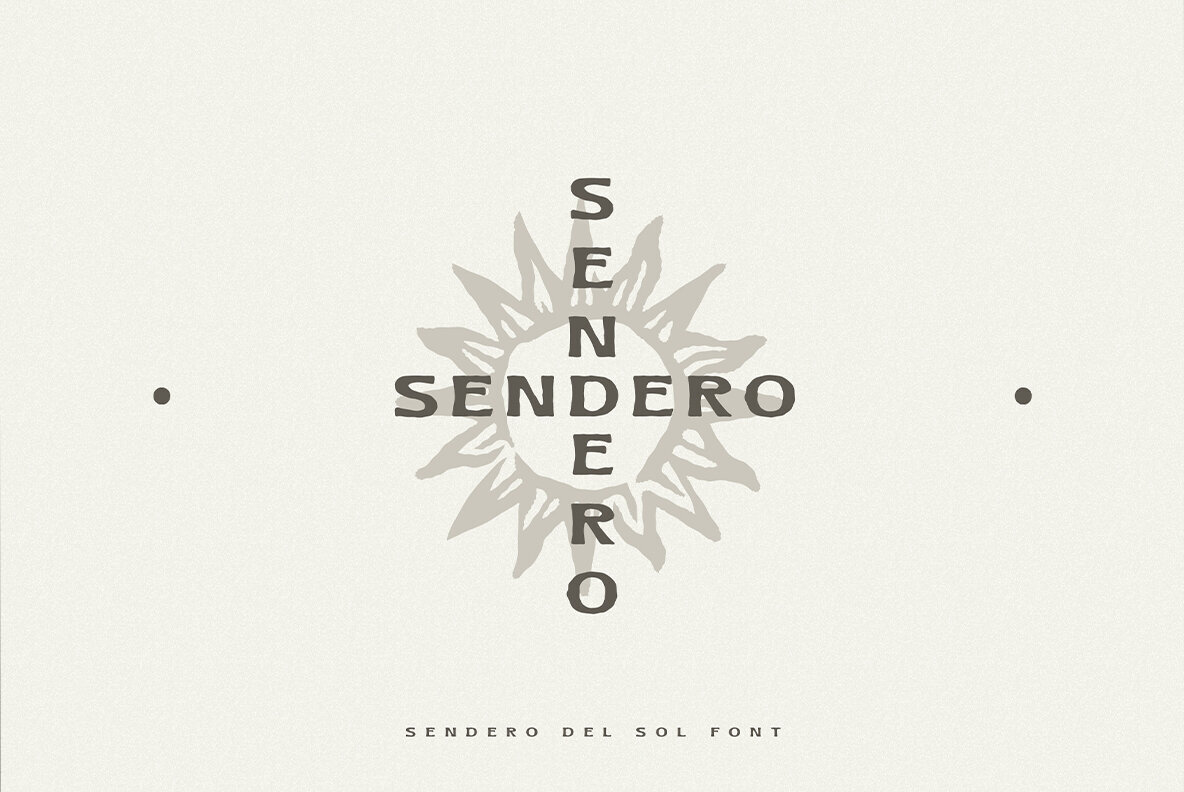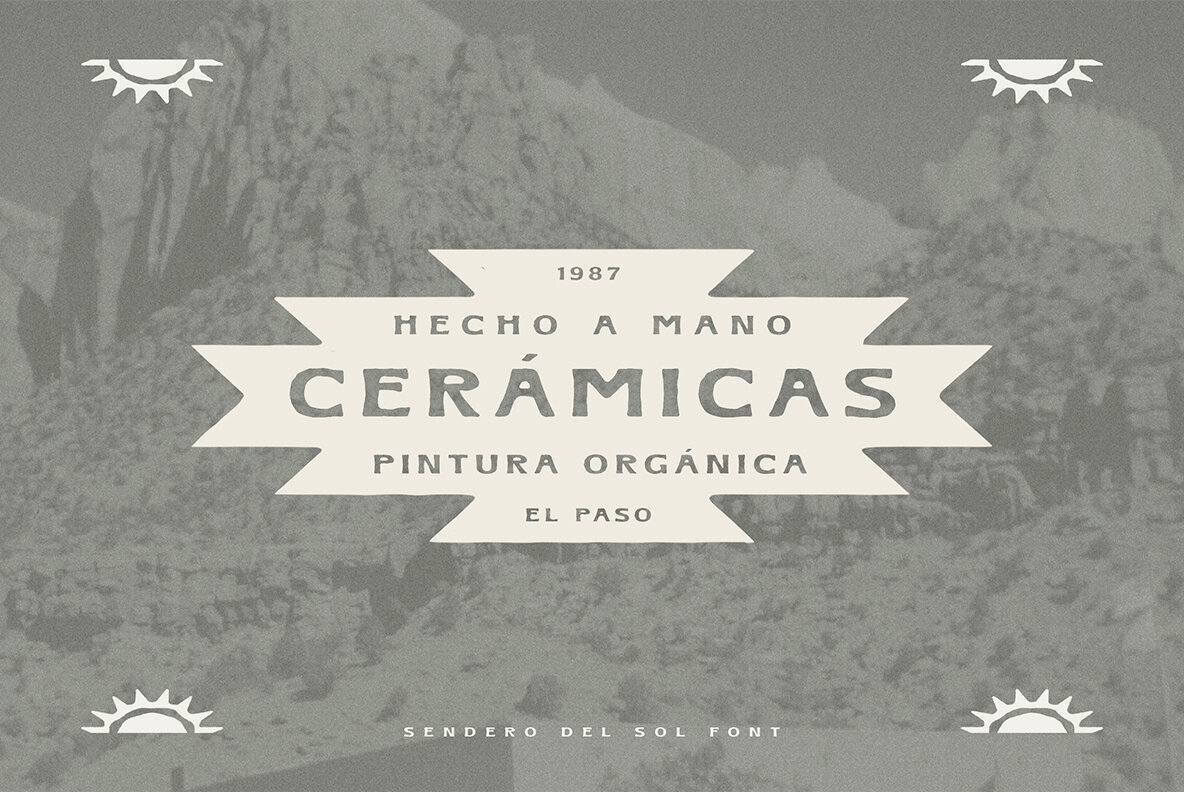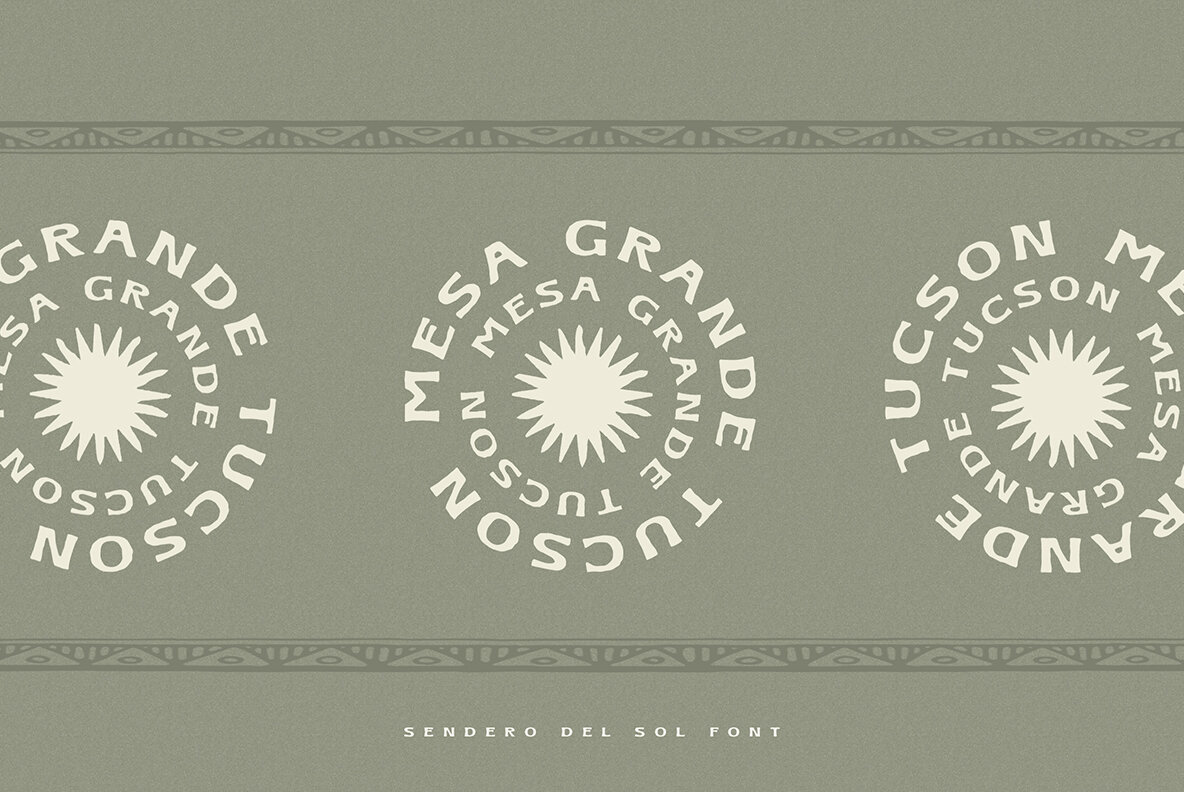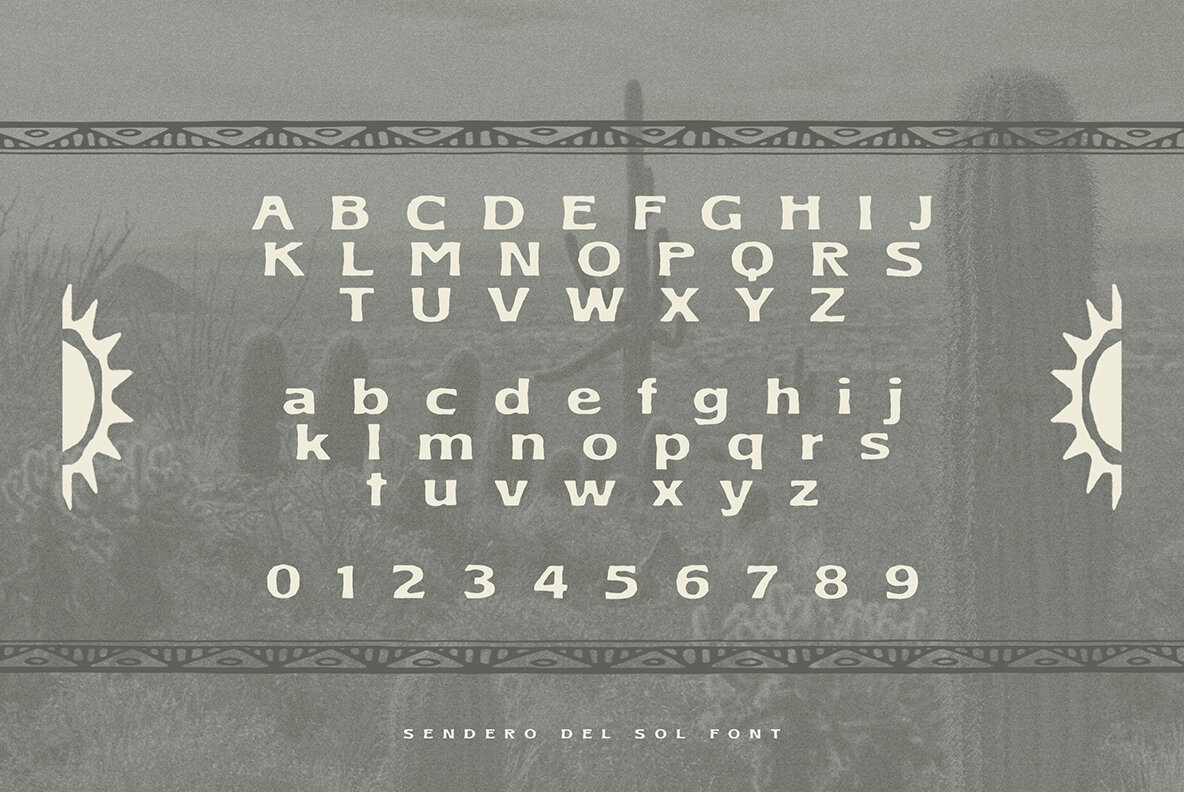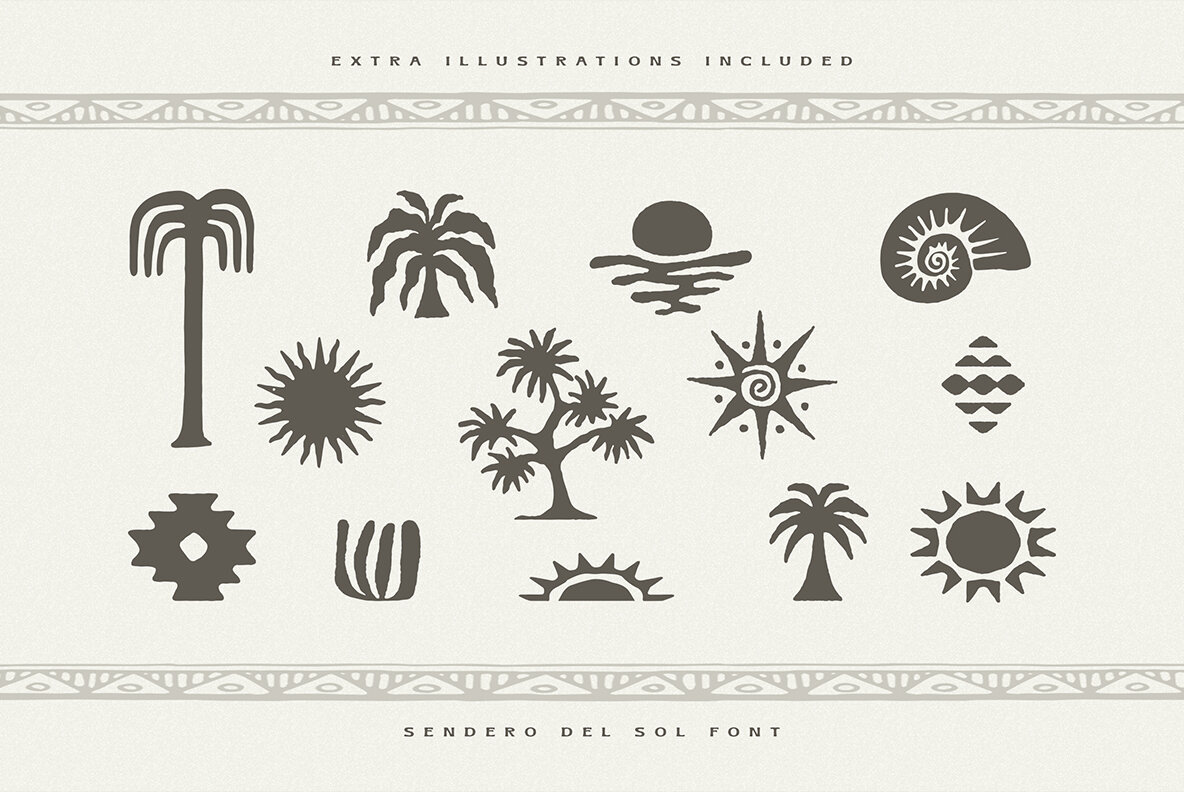
Sendero del Sol Font
"Sendero del Sol" is a one-of-a-kind typeface that embodies the vibrant spirit of Mexico and the charm of the old Southwest. Hand-drawn complementary PNG and Vector illustrations are included, perfect for adding an authentic touch to your projects.